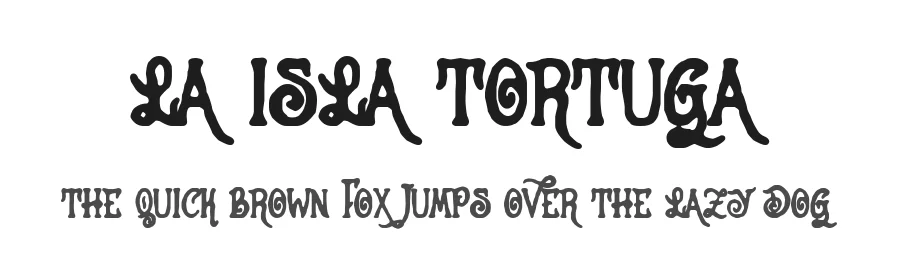
About Invader Candy Font
Invader Candy is a decorative font designed by Cumberland Fontworks. It includes 101 glyphs, a regular weight, TTF (TrueType) format, and 104 languages. Invader Candy is free to download; check the license details on this page before commercial use. Decorative fonts like Invader Candy work best for logos, posters, packaging, and standout headlines.
Invader Candy Font is a decorative font that shines as a display or heading face. Pair it with a clean sans-serif or serif font for body text β the contrast creates a clear hierarchy while the two styles stay balanced and easy to read.
Invader Candy Font
Invader Candy Font is a decorative typeface by Cumberland Fontworks, ideal for logos, invitations, branding, and creative projects.